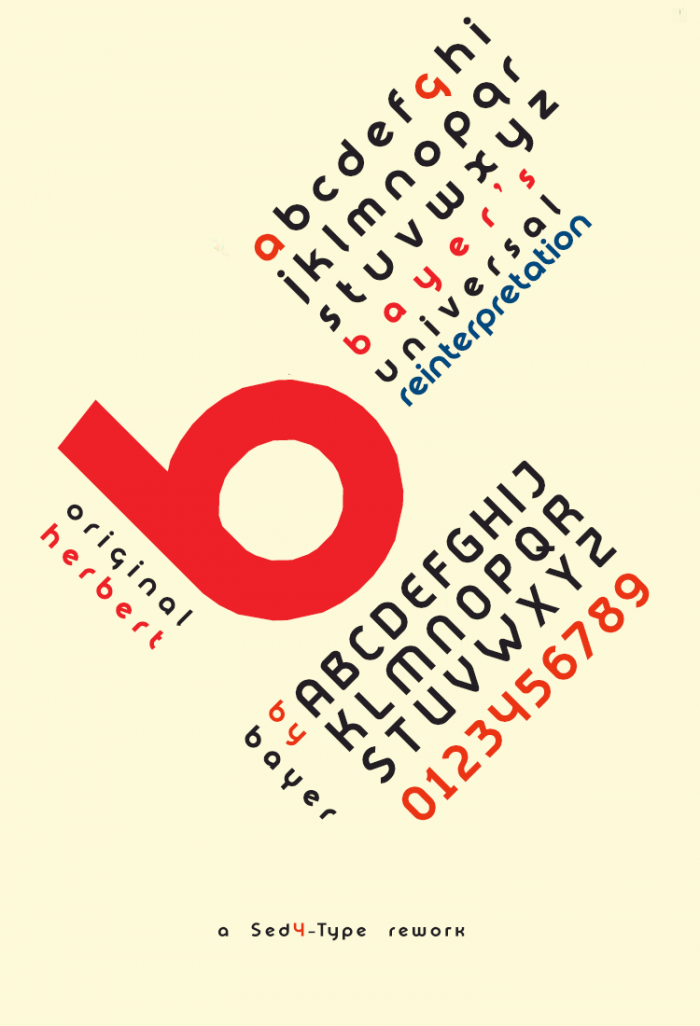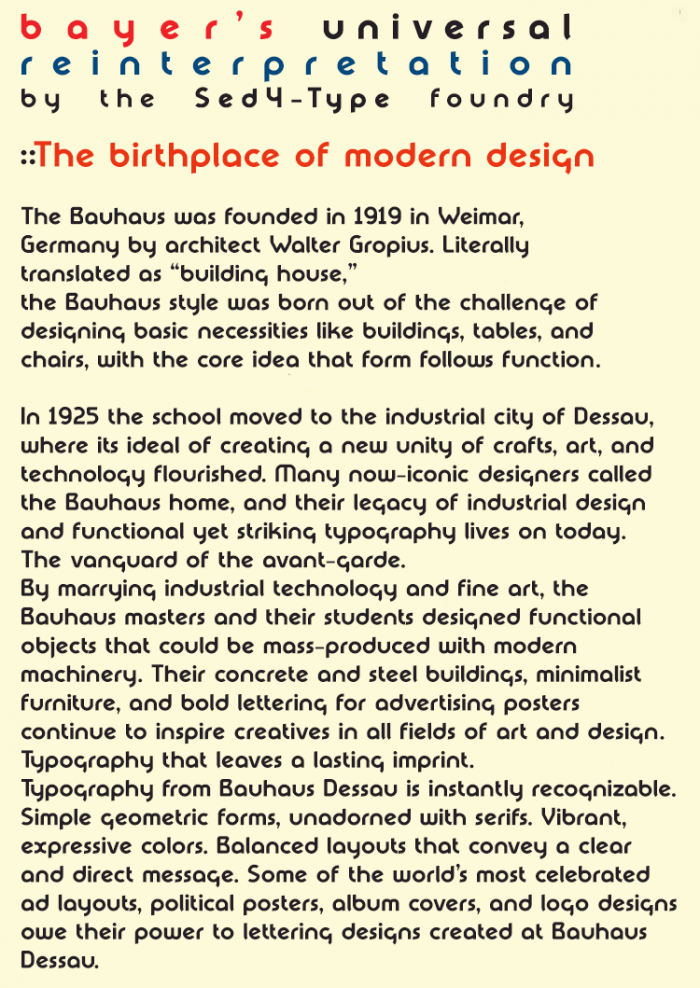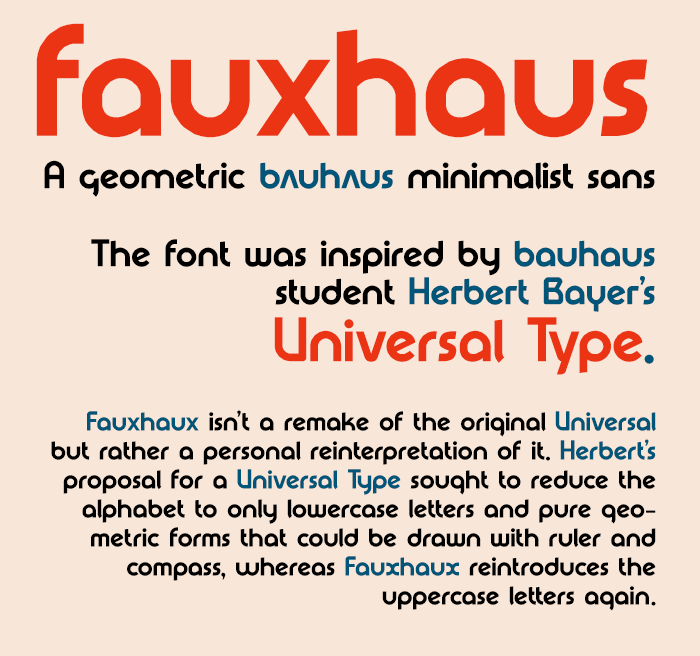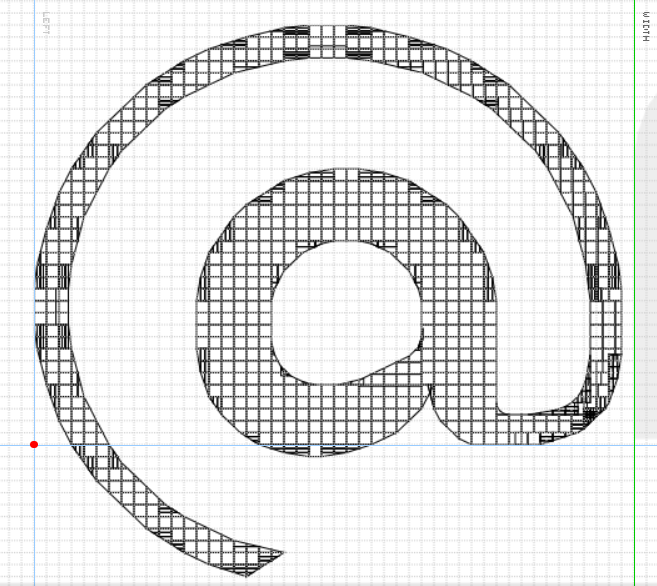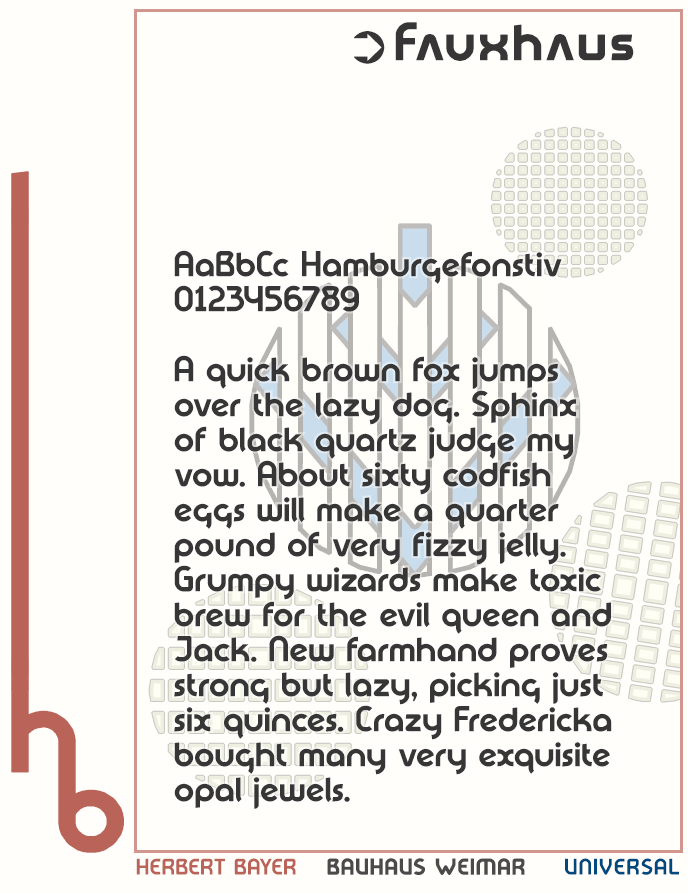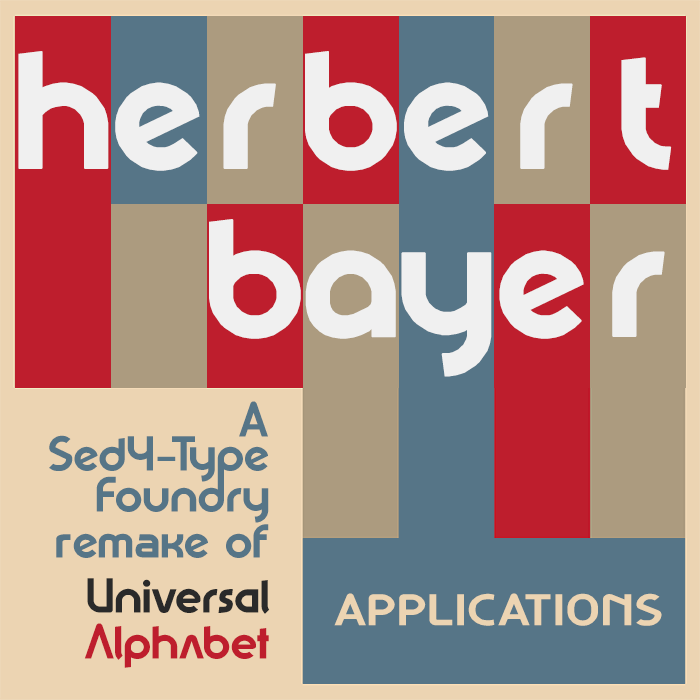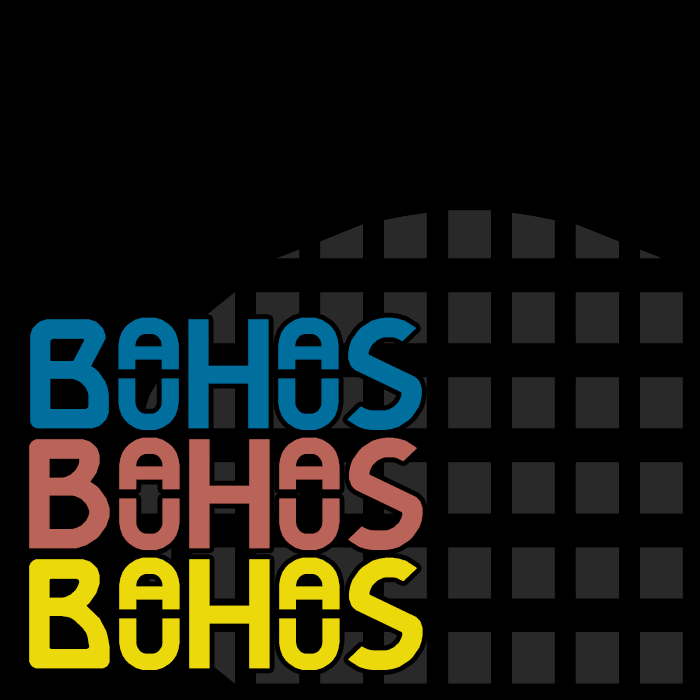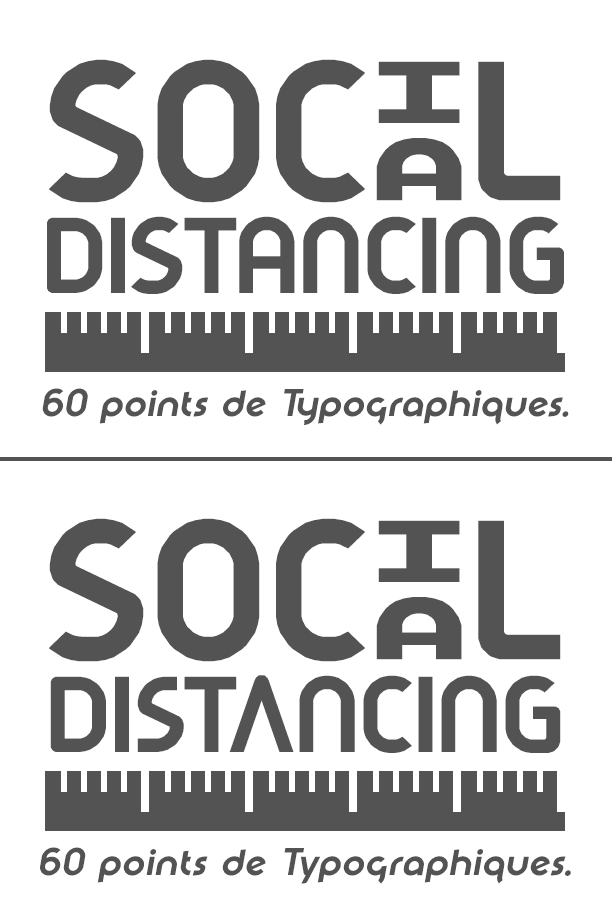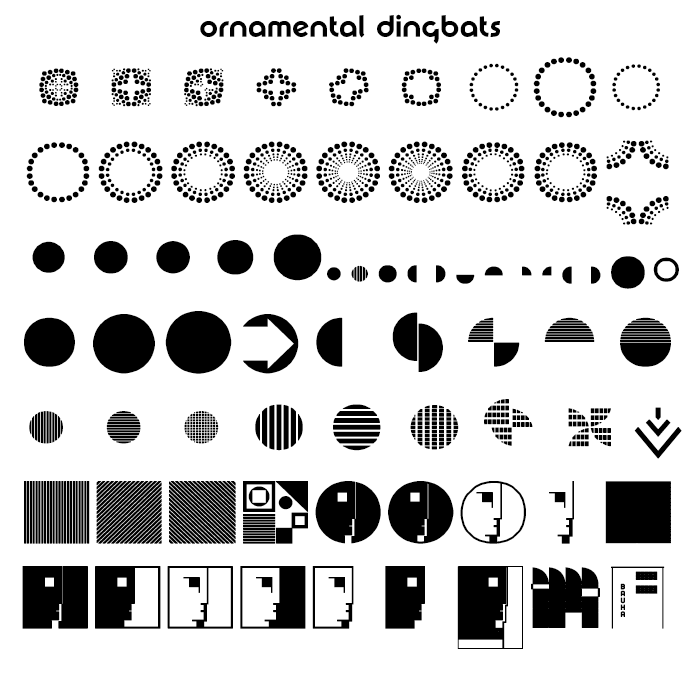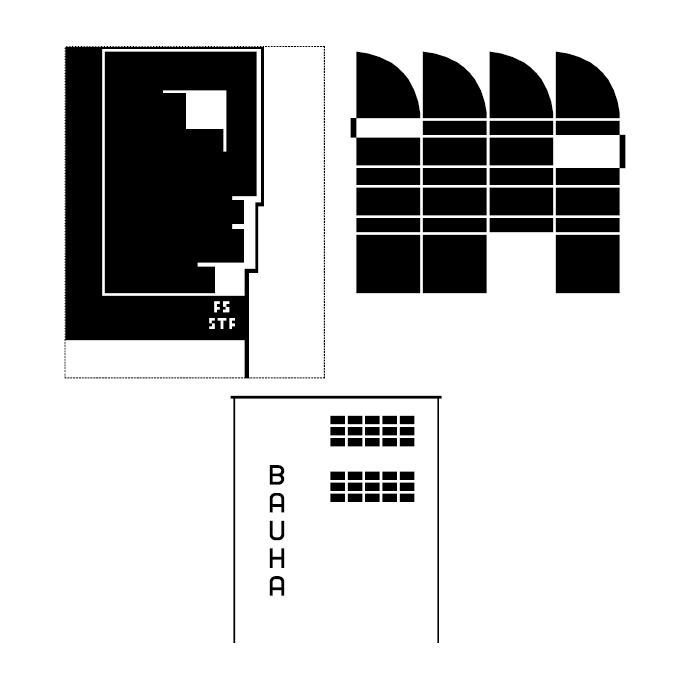
• Fauxhaus — Geometric minimalist modernism sans-serif design
[INSPIRATION]
As the name already suggests, this indeed was inspired by the Bauhaus-typograpy towards functionality style.
More specifically by Austrian artistic polymath Herbert Bayer's 1925 experimental "Universal" alphabet.
The alphabet he designed became somewhat synonymous with the school's identity, and probably is the most well known Bauhaus typeface, and truly epitomizing that typical simplified "Form follows function" Bauhaus-minimalism style. It was also used for the new Bauhaus-building signage.
Some key features in Bayer's original form are those easily recognizable geometric sans-serif letterings, with letter composition based on strong basic geometry, having eliminated all decorative elements of the letterform composition for that crisp industrial, slight mechanical minimalist aesthetic. Bayer's original Universal alphabet also eliminated the need for a upper case letter, further simplifying it towards more of a functionality-driven standardization. Bayer developed multiple revisions and variations of the alphabet. Sadly Universal was never cast as a font, as during that era they weren't manufactured into printing typefaces, and the designs would only exist as drafts (as was the case with all Bauhaus-typefaces). Nonetheless it served as a lettering model for Bauhaus students, colleagues, and followers alike, and they were regularly re-used for signs, book covers and publications by many of its members, but even beyond institution walls the typographic style began to gain a foothold. Throughout the years we have seen a multitude of revivals and other Bauhaus-inspired typeface designs. Some of which that try to be faithful digitizations of the original, whereas others taking a more artistic approach to the style by providing their own personalized reinterpretation of the Bauhaus-aesthetic. So even to this day, many decades later, it repeatedly continues to inspire and influence designers time and again.
Bayer, First a student and later junior master of the printing workshop, was one of Bauhaus’s most influential attendees, advocating the integration of all arts throughout his career. Though not trained as a typographer, he was also assigned with the task of creating a universal visual & typographic identity for the school.—a task Bayer took very serious. Sparking perhaps the most mythic typeface to ever come out of the Bauhaus, which is "Universal"—one that at that time strove to be as idealistic as the school itself
[THE "FAUXHAUS" FONT]
This is an artistic reinterpretation of Bayer's "Universal" alphabet.
Aiming to preserve the unmistakable style and simplistic geometric stylistic properties of the original, while in the same time allowing a more 'free-form'-approach towards crafting the letterform compositions. This of-course as long as they remains in-line with the stylistic properties of the original. And for the lack of having a better explanation;
—To do sort-of a 'faithfully different' artist depiction of Bayer's original Universal alphabet.
Some notable differences made in Fauxhaus compared to Universal are the re-introduction of a upper case form and the slight de-simplification and inclusion of subtle decorative nuance.
In some cases I've choosen to compose certain specific characters to be more or less identical as to how Bayer originally intended them, whereas others may be entirely different looking. And for some characters have one or more alternative form as well. Some of which are more 'ad hoc'- compositions drawn as we went when new ideas popped up. But others were specifically created to preserve and / -or include certain distinctive and unmistakably identifiable letterforms from Bayer's original Universal alphabet.
Greek & Cyrillic characters included in Fauxhaus were solely added for my personal experimentation purpose only, and they serve 'zero' function as to additional language support of the font.
Each letterform was meticulously composed from a random collection of the various memories, which after some thirty Bauhaus-inspired and / -or -revival works including their respective 'shared' research I have accumulated over time for Bauhaus typography like Bayer's work.
No source reference image was used as guidance for creating this FontStruction, everything came straight from the knowledge I gathered from the many previous Bauhaus related projects I did.
So to draw solely from memory alone somewhat a convincing and reasonably similar personal reinterpretation of an original 'Bauhaus' typeface at this stage has gotten pretty easy for me.
For this project in particular I've choosen to construct the letterforms on a medium sized grid, using the linear interpolation 'faux'-Bézier method. So beware that when using this font at very large point size rendering the remnants of this process will become visible!
What fine Bézier curves, close to perfection! Great recreation! (Just out of curiosity, what is the x-height here, please?)
@elmoyenique: Cant exactly tell at this moment, since Im @ mobile device. But I do know the weight of thin circle around @ symbol is 0.8 square brick units.
Nonetheless, always a pleasure to read your kind words compa! 😎